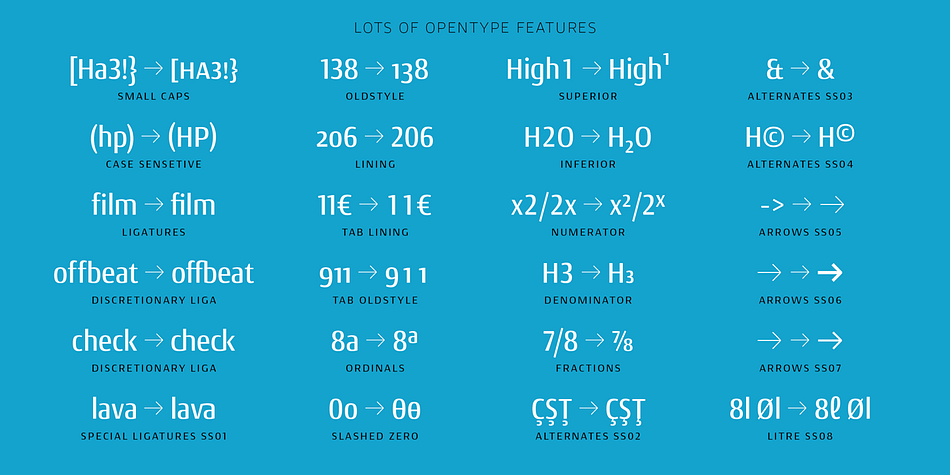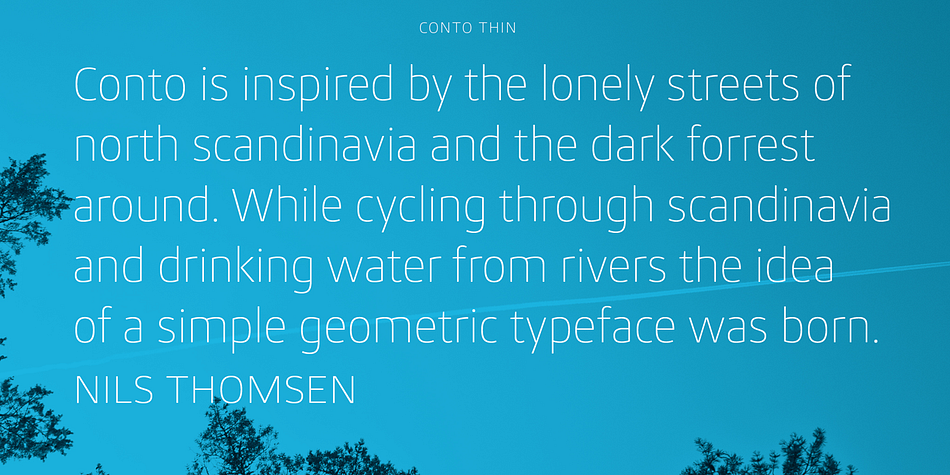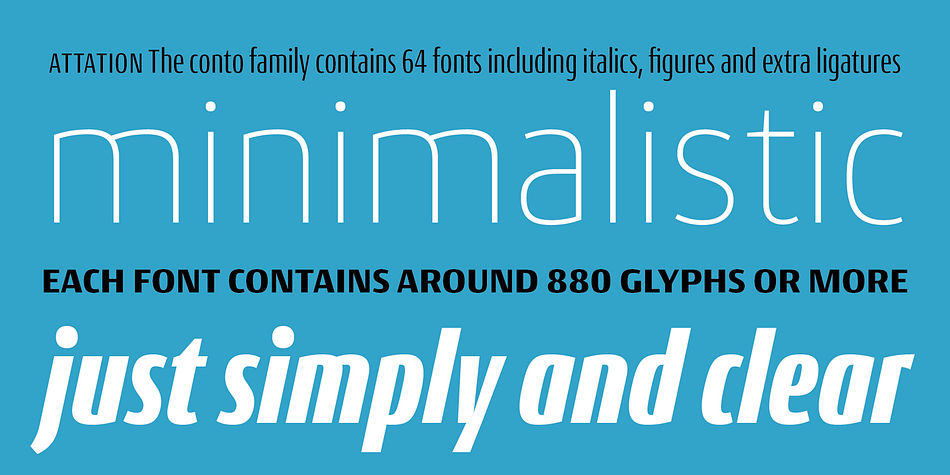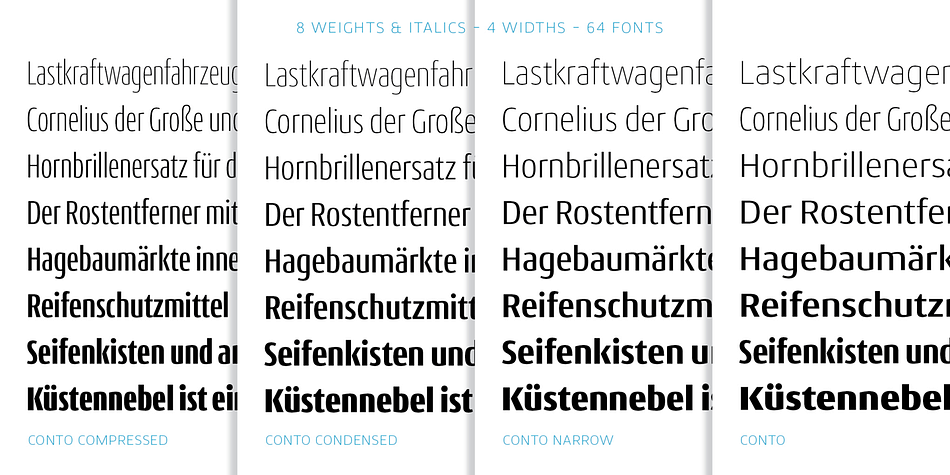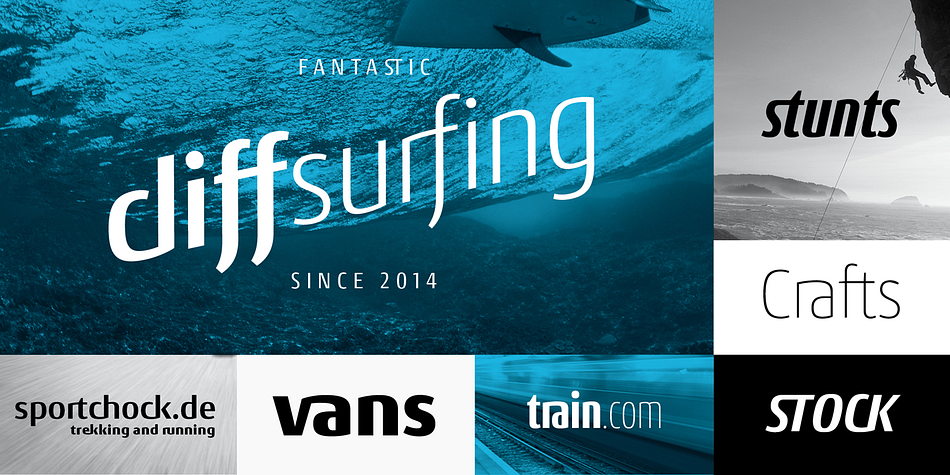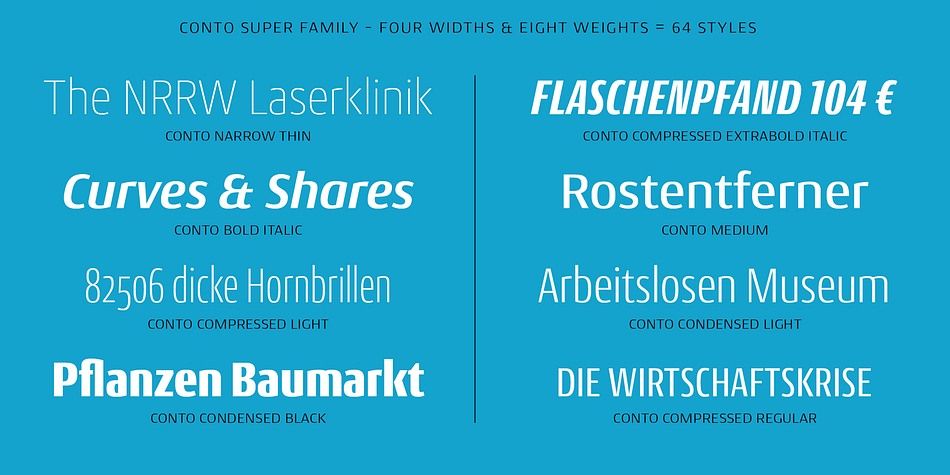
Designed by Nils Thomsen, Conto is a sans serif font family. This typeface has sixty-four styles and was published by TypeMates.
The Conto super family is a powerful and clear typeface for complex corporate typography. From essential text to captions, tables and advertising, the 64 weights have the flexibility to fulfil your every typographic need. The Conto family is simple, serious, elegant and independent.
Conto’s minimalist and simplified lowercase forms, combined with contrast that ranges from the mono-linear in the thin to the pronounced in the bold, mark the typeface as an independent and striking design. But with its remarkable number of discretionary ligatures, you’ll find Conto isn’t just useful for setting text and headlines, but for logotypes and lettering.
From elegant thin to strong black, each of Conto’s eight weights is available in four widths (compressed, condensed, narrow and regular) and contains around 880 glyphs to support all Latin-script based languages. Each weight also includes small caps, all the figures you need for serious typography and, of course, case and small-cap sensitive punctuation and fractions.